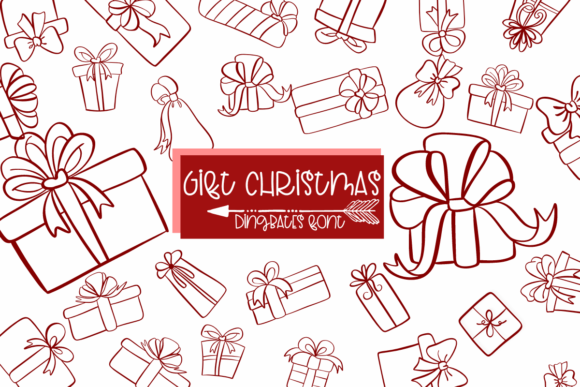
The Magic of Gift Christmas Font: Elevate Your Holiday Projects
As the holiday season approaches, many of us are busy brainstorming ideas for our loved ones. We want to create something special, something that will be remembered for years to come. Whether it’s a handmade gift, a DIY decoration, or a festive invitation, the right font can make all the difference. That’s where Gift Christmas Font comes in – a beautiful, sketch-style dingbats font designed to add a touch of holiday magic to your creative projects.
This versatile font is perfect for designers looking to add a personal touch to their work. With Gift Christmas Font, you can create unique and eye-catching designs that will stand out from the crowd. From wedding invitations to logos, and from decorations to crafts, this font is the perfect companion for any creative project. Whether you’re a seasoned designer or a DIY enthusiast, Gift Christmas Font is a valuable addition to your toolkit.
- Unique Characteristics: Gift Christmas Font features intricate ornaments, festive symbols, and traditional holiday icons, making it perfect for Christmas-themed designs, cards, and packaging.
Designer Review: Gift Christmas Font
Overall, I was excited to dive into the “Gift Christmas Font” and see what it had to offer. ✨ One of the things that stood out to me right away was the unique and playful aesthetic of the font. It’s perfect for those looking to add a touch of festive cheer to their designs.
Some of the key features that I enjoyed about the font include:
- ✨ High-quality vector graphics for seamless scaling
- ✨ A wide range of characters and glyphs to support various languages
However, there are a few limitations that I’d like to mention: ⚠️ The font’s complexity may make it difficult for beginners to use, and the number of characters available is relatively limited compared to other fonts.
Overall, I’d say that the “Gift Christmas Font” is a great choice for designers who want to add a fun and festive touch to their work. While it may not be perfect for every project, it’s a great option for those looking for a unique and playful font.
Use the font to create festive holiday graphics, gift tags, or invitations. You can also combine it with other elements, such as images and shapes, to create a cohesive design.
Use the font to create custom gift wrapping designs, holiday cards, or advertisements. You can also use it to create 3D text effects or combine it with other design elements.
Use the font to create festive holiday presentations, gift certificates, or holiday cards. You can also combine it with other design elements, such as images and shapes, to create a cohesive design.
Experiment with different font sizes, colors, and styles to create a unique and festive design.
Combine the font with other design elements, such as images and shapes, to create a cohesive and visually appealing design.
Use the font to create custom designs for gifts, cards, and other holiday-related projects.
Holiday graphics and invitations
Gift tags and gift wrapping designs
Q: Can I customize the Gift Christmas Font for a specific project?